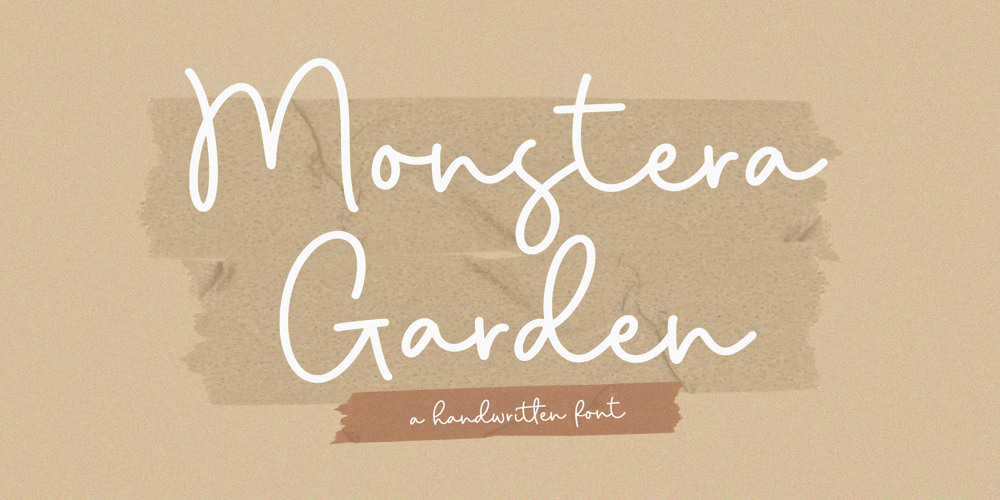
Monstera Garden Font Family was designed by Wara Sigit Tri Pamungkas and published by Timurtype. Monstera Garden contains 1 styles and family package options. Introducing by Timur typeMonstera Garden A Handwritten FontMonstera Garden is perfect for product packaging, branding projects, magazines, social media, wedding, or just used to express words above the background.Monstera Garden offers also multilingual support.Enjoy the font. Thank you!